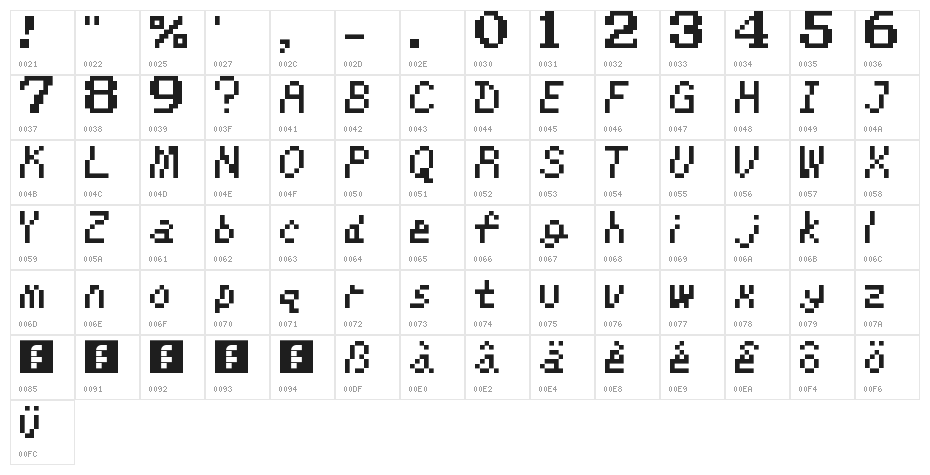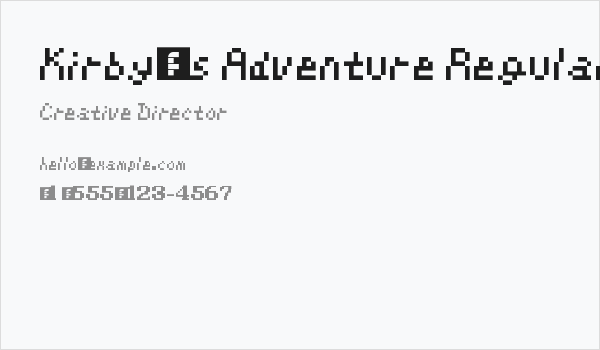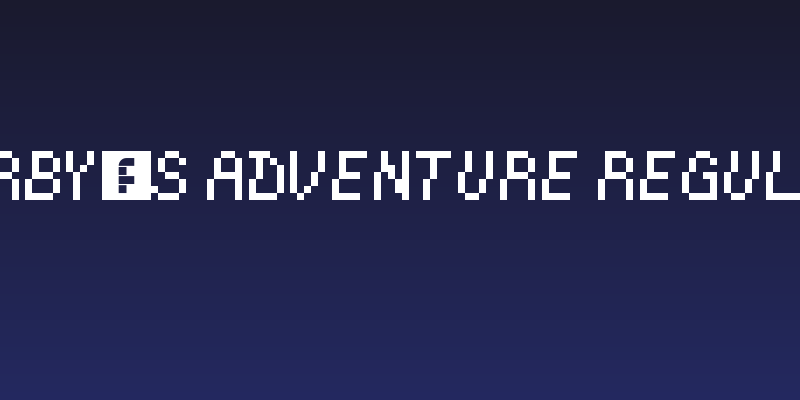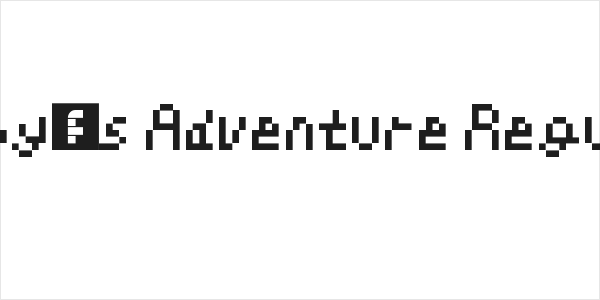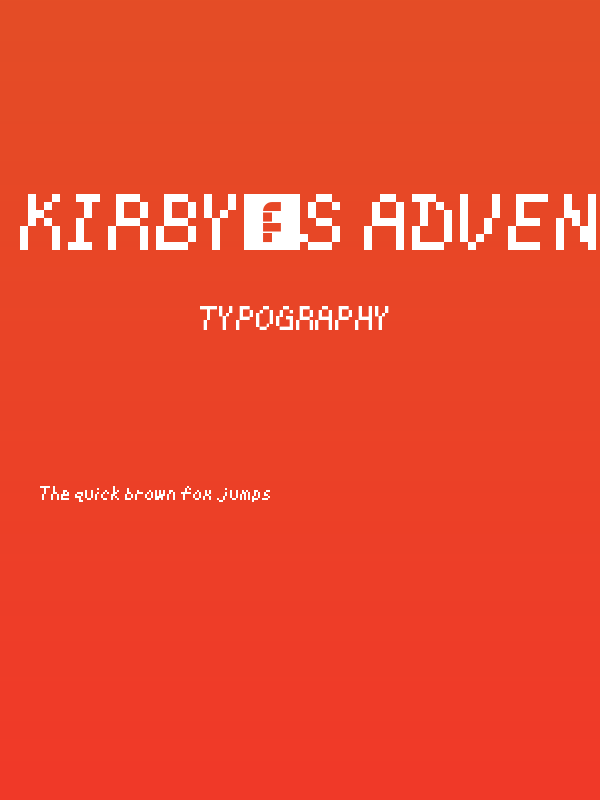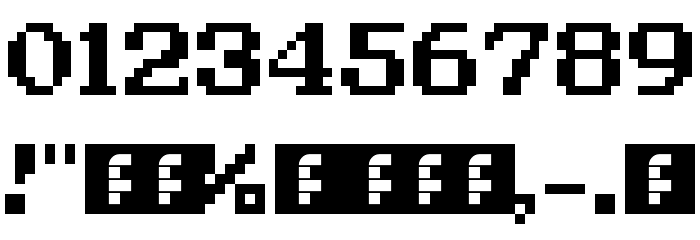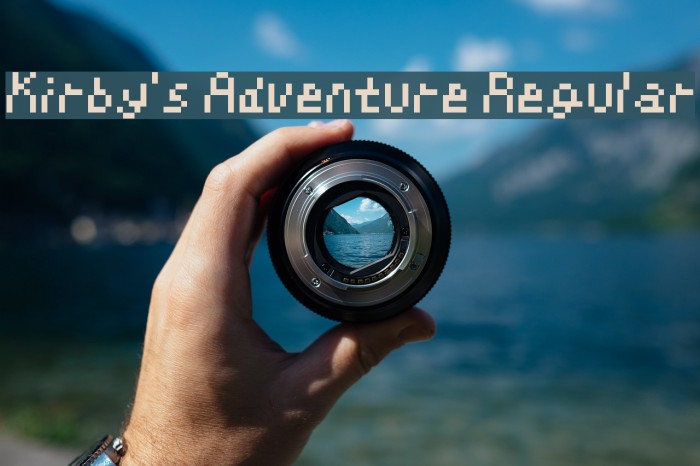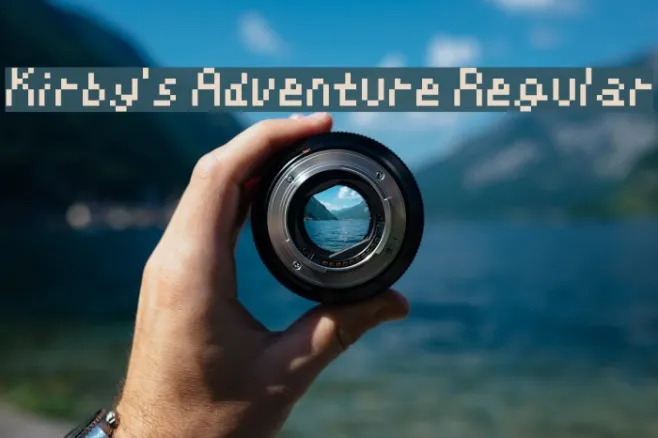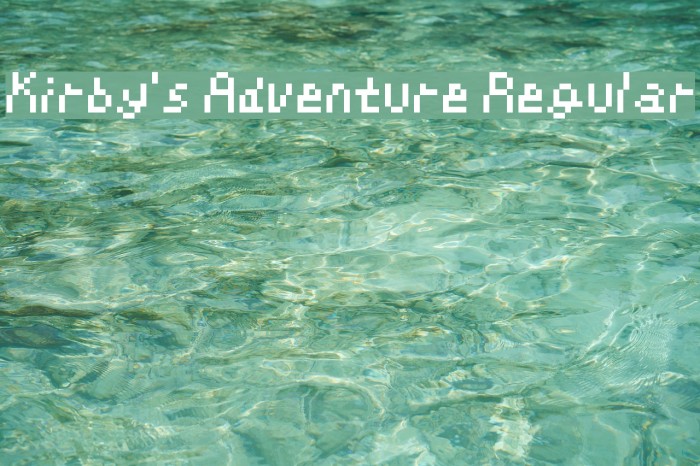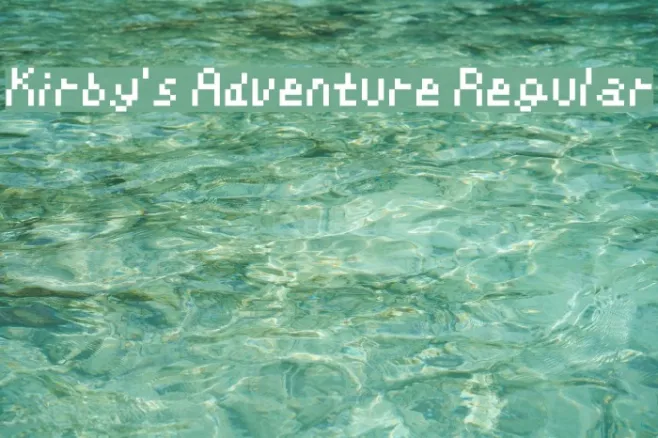
Kirby's Adventure Regular Font
Kirby's Adventure Regular Description
This font features a pixelated, blocky style reminiscent of classic video game graphics. Each character is constructed with a grid-like precision, giving it a retro, digital appearance. The uppercase and lowercase letters maintain a consistent height, contributing to a uniform look. The numbers and special characters follow the same pixelated design, ensuring cohesion across all elements. This font's nostalgic aesthetic is ideal for projects that aim to evoke a sense of early digital or arcade gaming. Its simplicity and clarity make it suitable for both display and text purposes, though it shines best in larger sizes where its unique style can be fully appreciated.
| Use Case | Headlines, Logos, Digital Art |
| Proposed Projects | Ideal for retro video game designs, digital art projects, and nostalgic branding. |